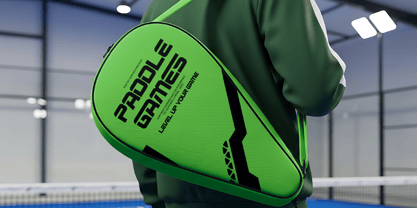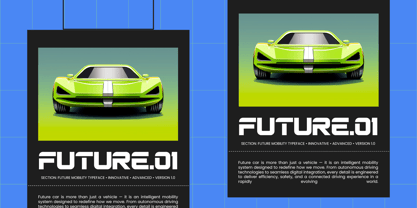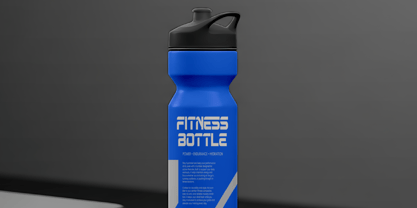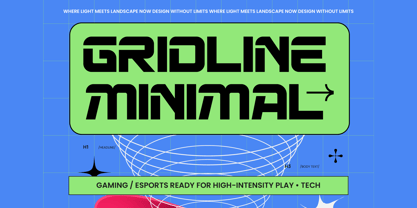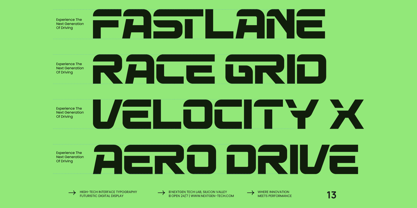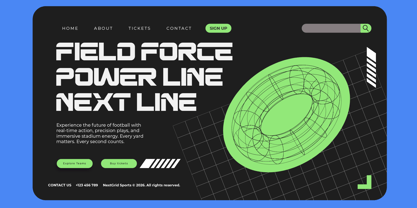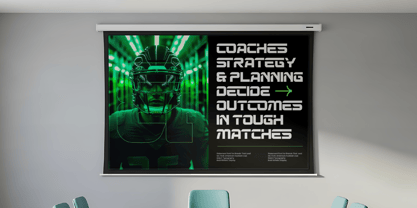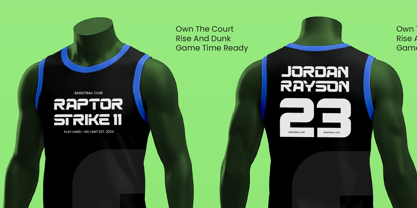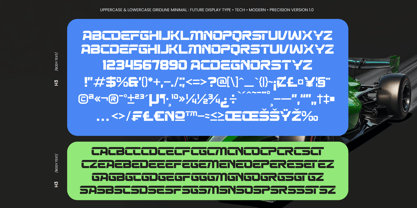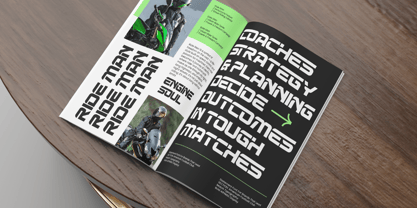
Gridline Minimal
Die Schriftfamilie Gridline Minimal wurde von Heru Utama Putra entworfen und von Timelesstype Studio veröffentlicht. Gridline Minimal enthält 2 Stile und Familienpaketoptionen. Mehr über diese Familie
Gridline Minimal - Esports Display Type
Gridline Minimal is a modern and bold display typeface that pushes the boundaries of design with its clean, geometric shapes and tech-inspired lines. With 60 ligatures and 20 alternate characters, this font is designed for high-impact visual communication, perfect for gaming, esports, technology, and futuristic branding. Its minimal and sleek style makes it ideal for headlines, digital marketing, and cutting-edge designs that need a futuristic touch.
The Gridline Minimal font has a unique balance between readability and dynamic design, making it suitable for a wide range of creative projects, from websites to branding and advertising. It offers a powerful statement while maintaining a streamlined and professional appearance.